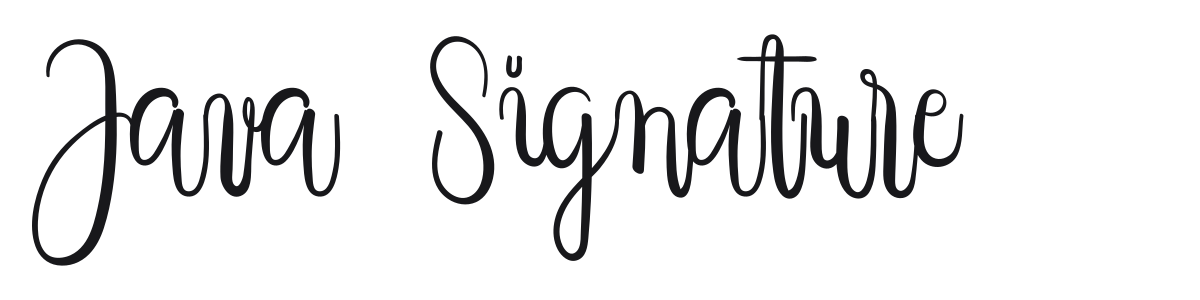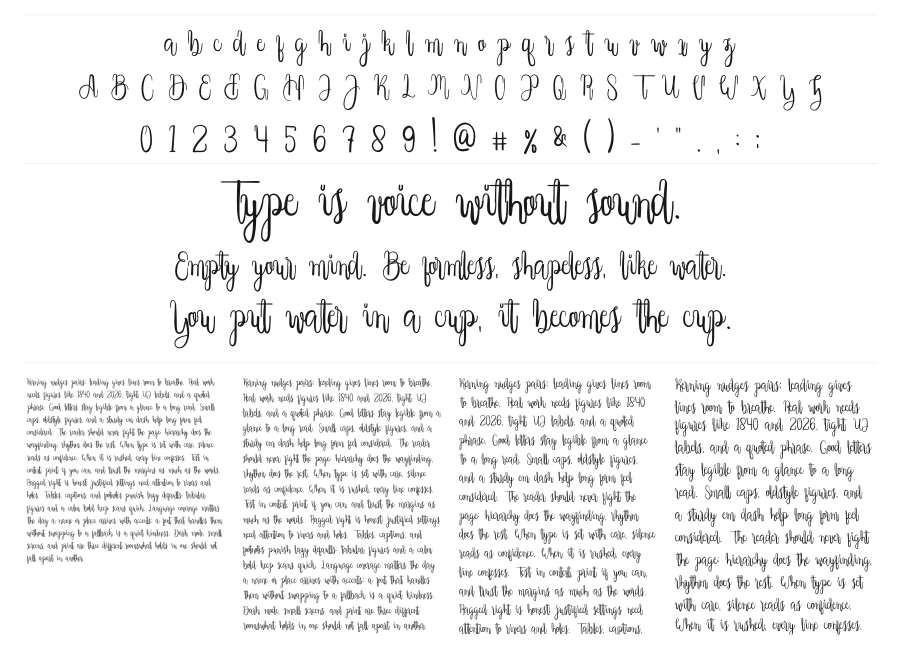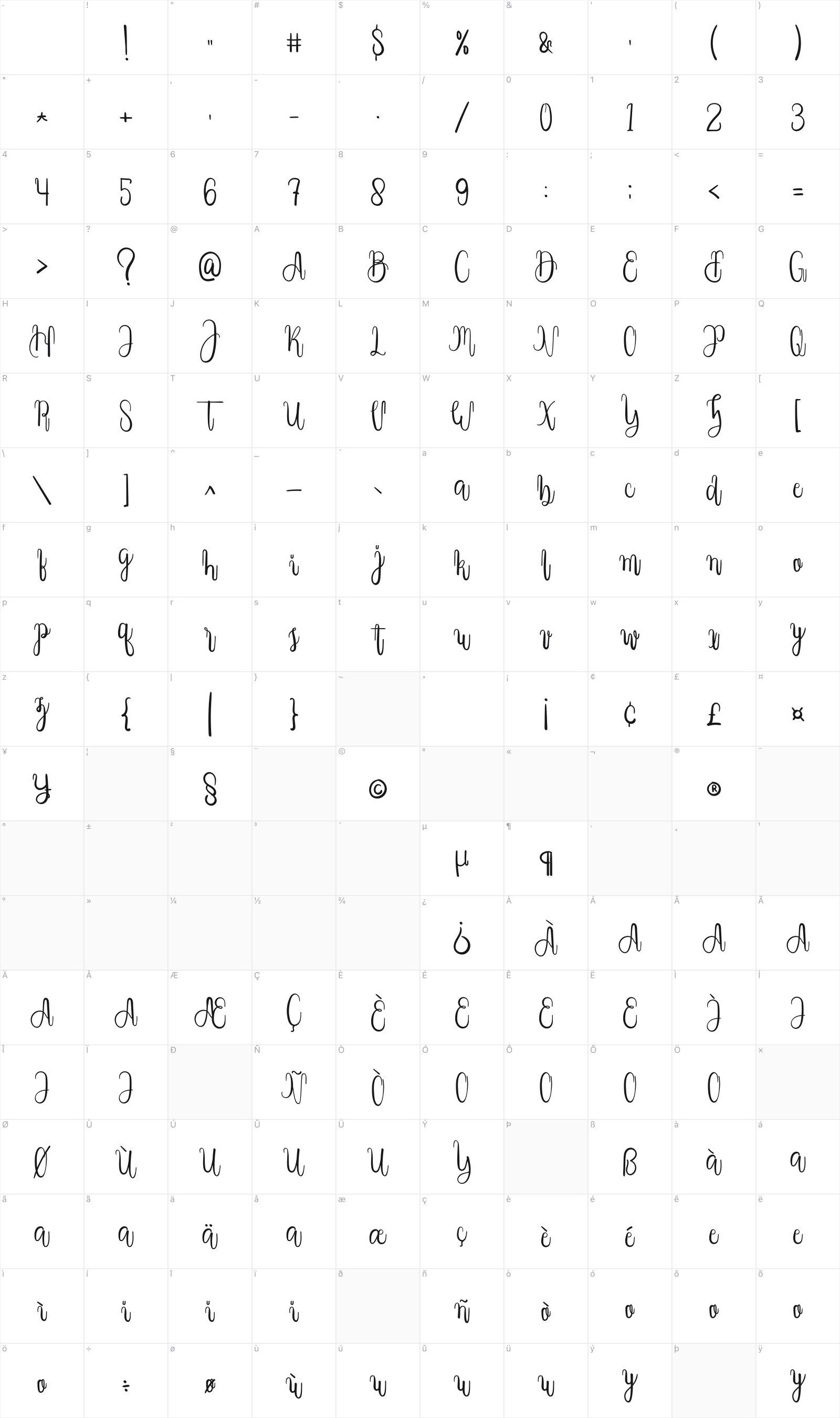
Java Signature
Java Signature is a whimsical casual script with flowing connected strokes and looped, curling ascenders that give it a relaxed handwritten feel. The bouncy baseline and rounded forms keep it lively without tipping into chaos. It works well for branding, packaging, and any headline that needs a personal, friendly touch.